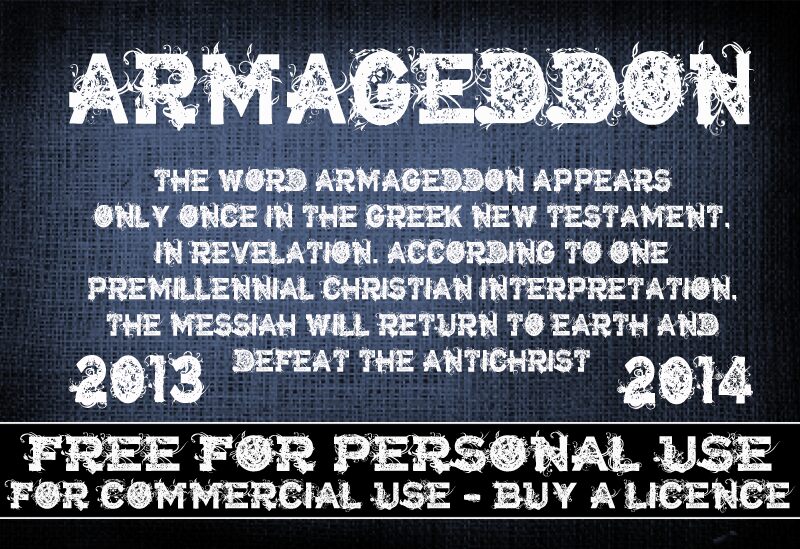
CF Armageddon by CloutierFontes is a free distorted decorative display font built around massive, squared capitals overtaken by thorny flourishes. Tangled vines, splatters, and ragged cutouts break across the solid strokes and make the lettering resemble an overgrown stencil or damaged concert graphic.
Its collision of hard industrial shapes and curling ornament suits metal album artwork and horror event posters, yet the plant-like detail also makes sense on dark fashion merchandise or theatrical packaging. The letters can become an illustrated emblem for apocalyptic entertainment branding.
CF Armageddon Regular is a font by CloutierFontes, designed by Steve Cloutier in 2013.